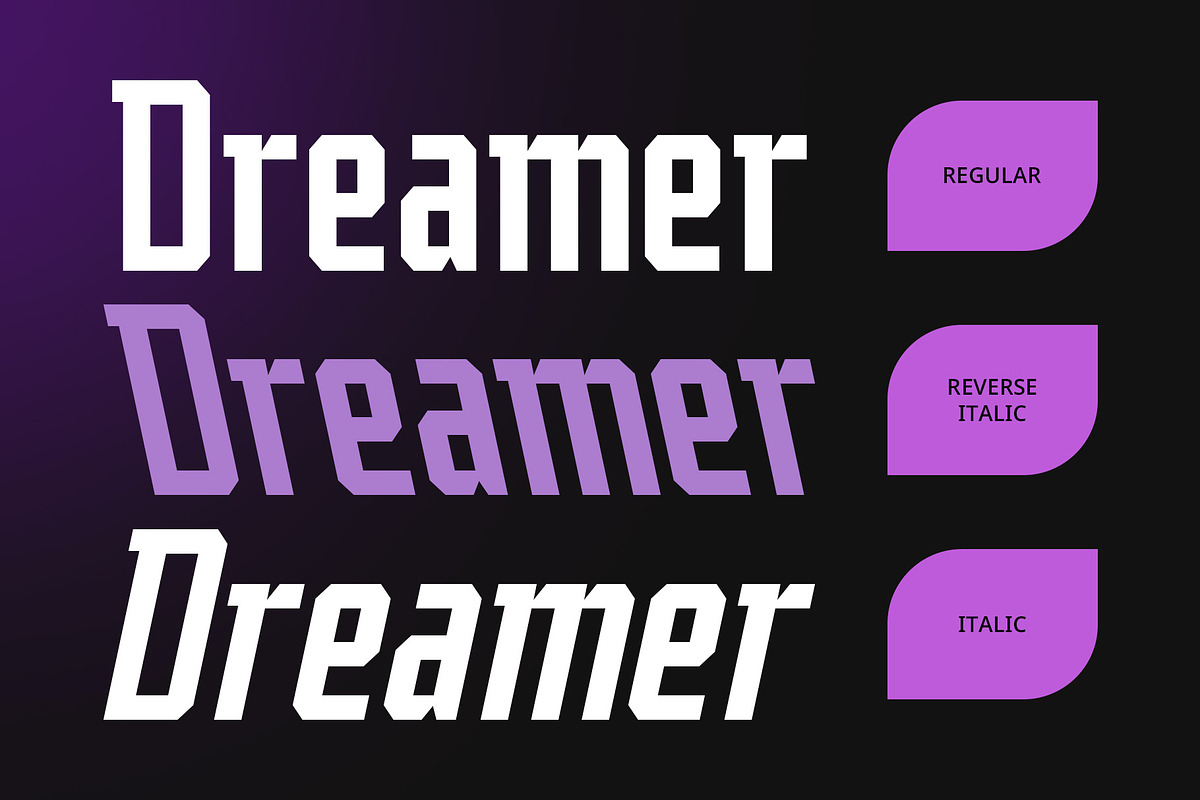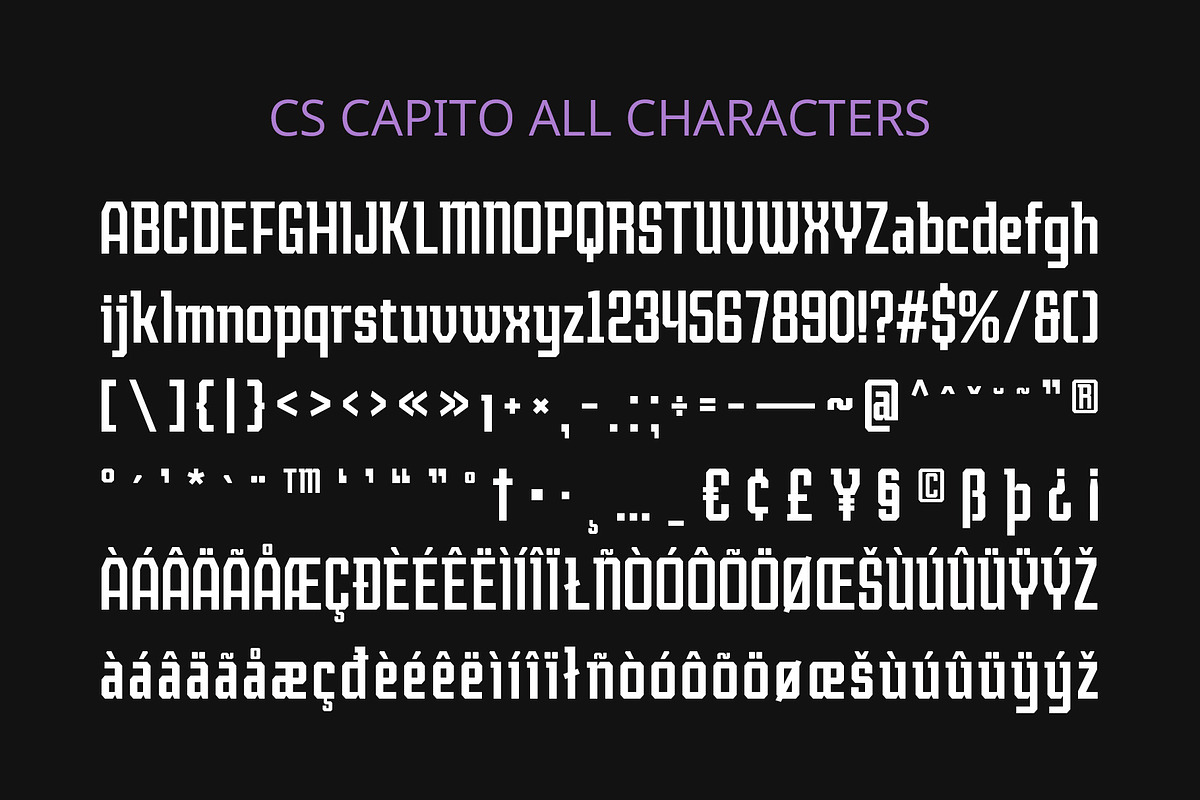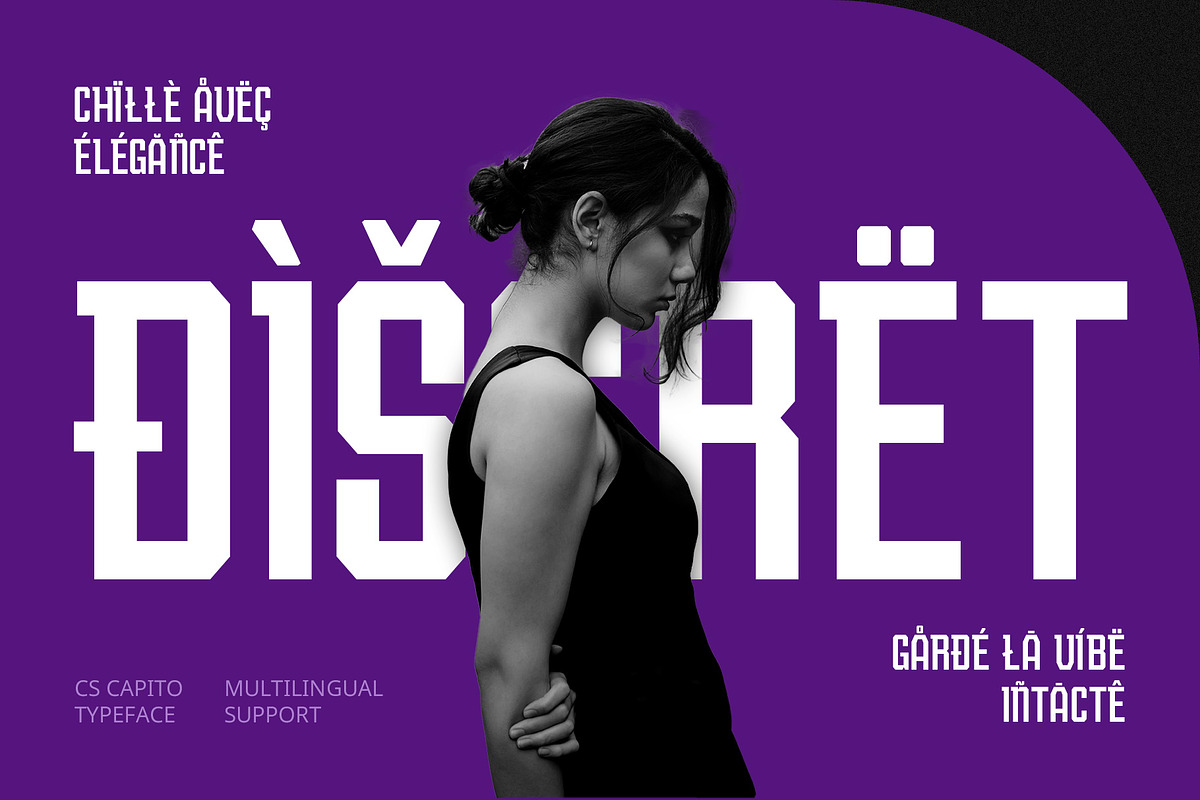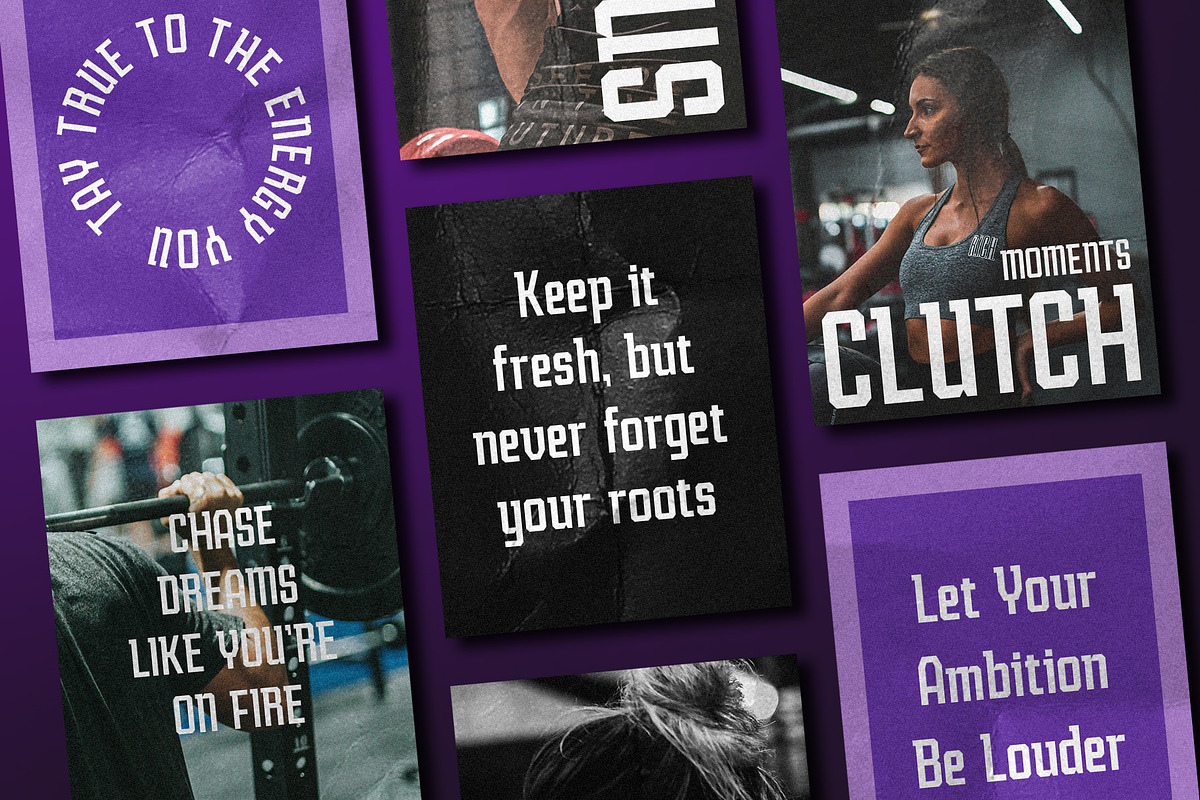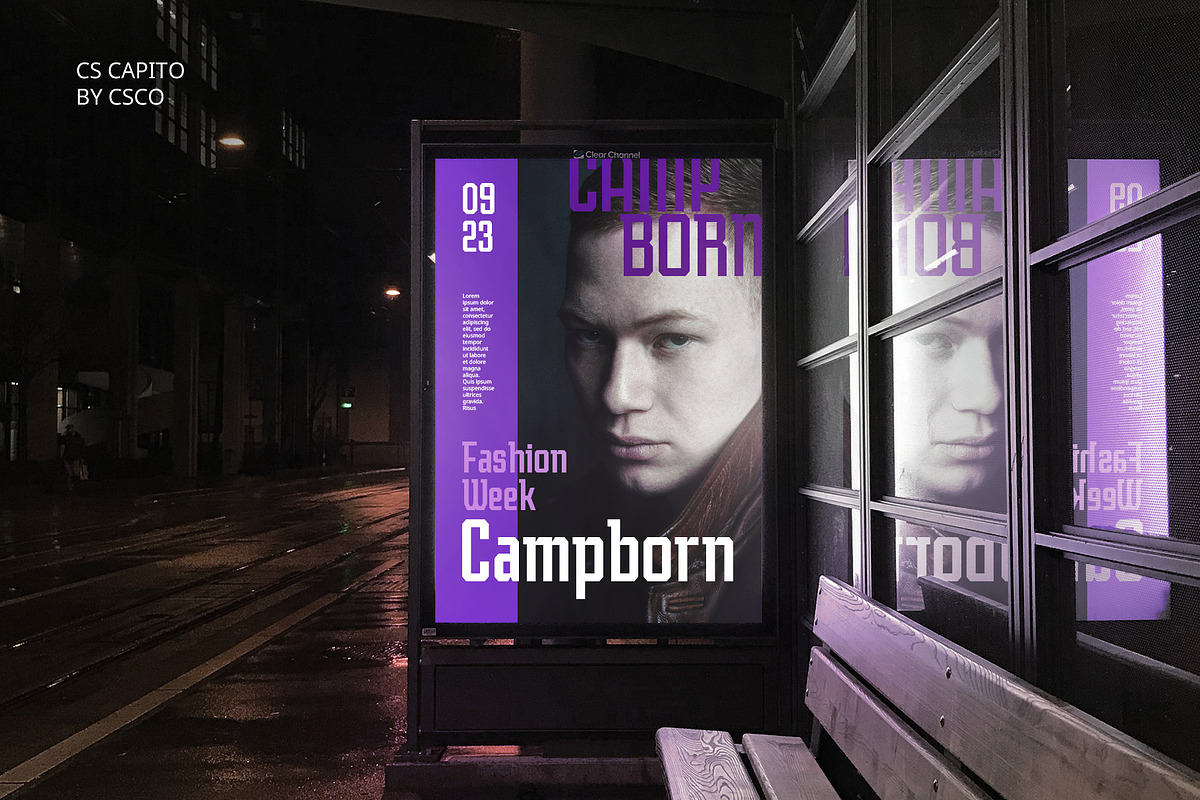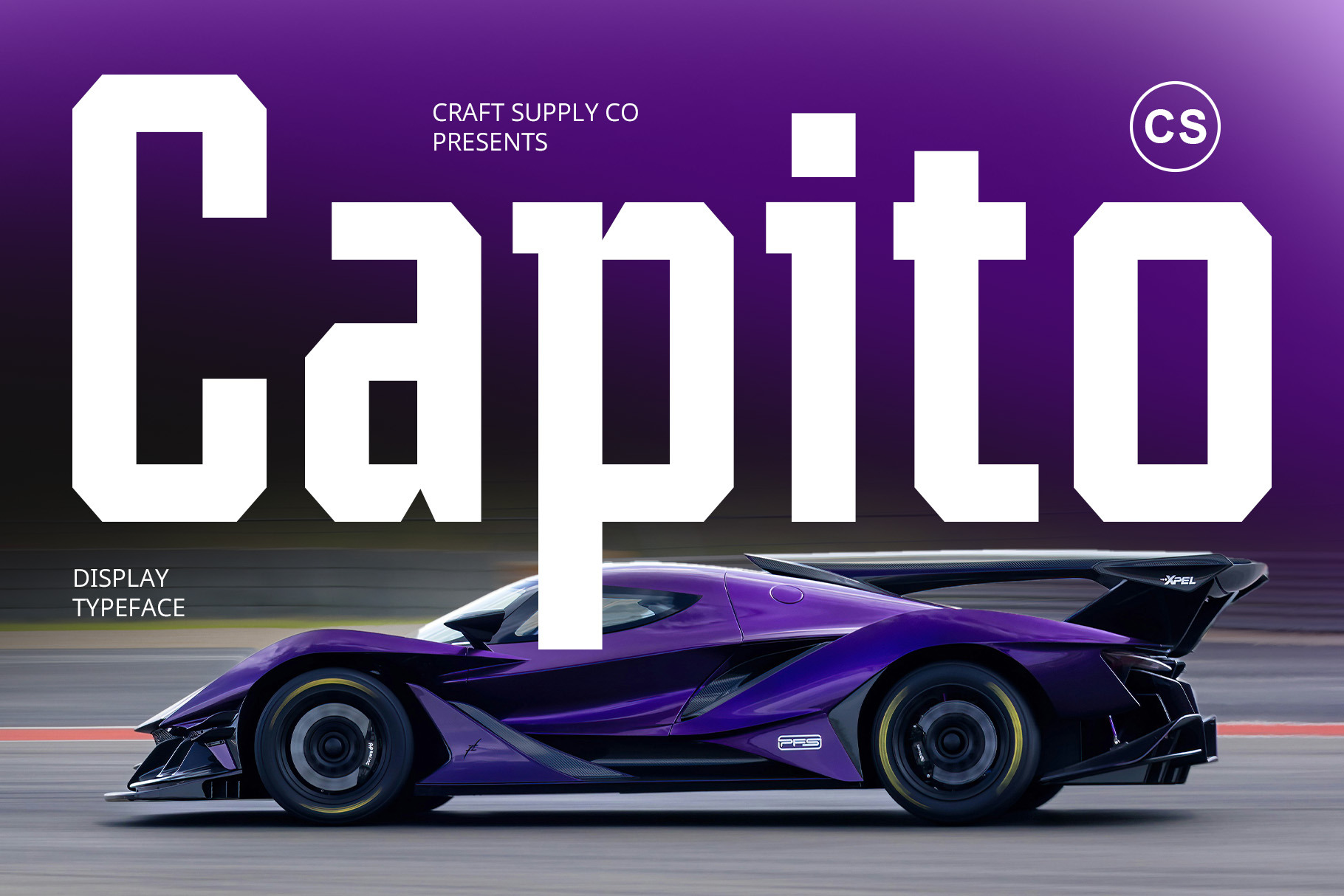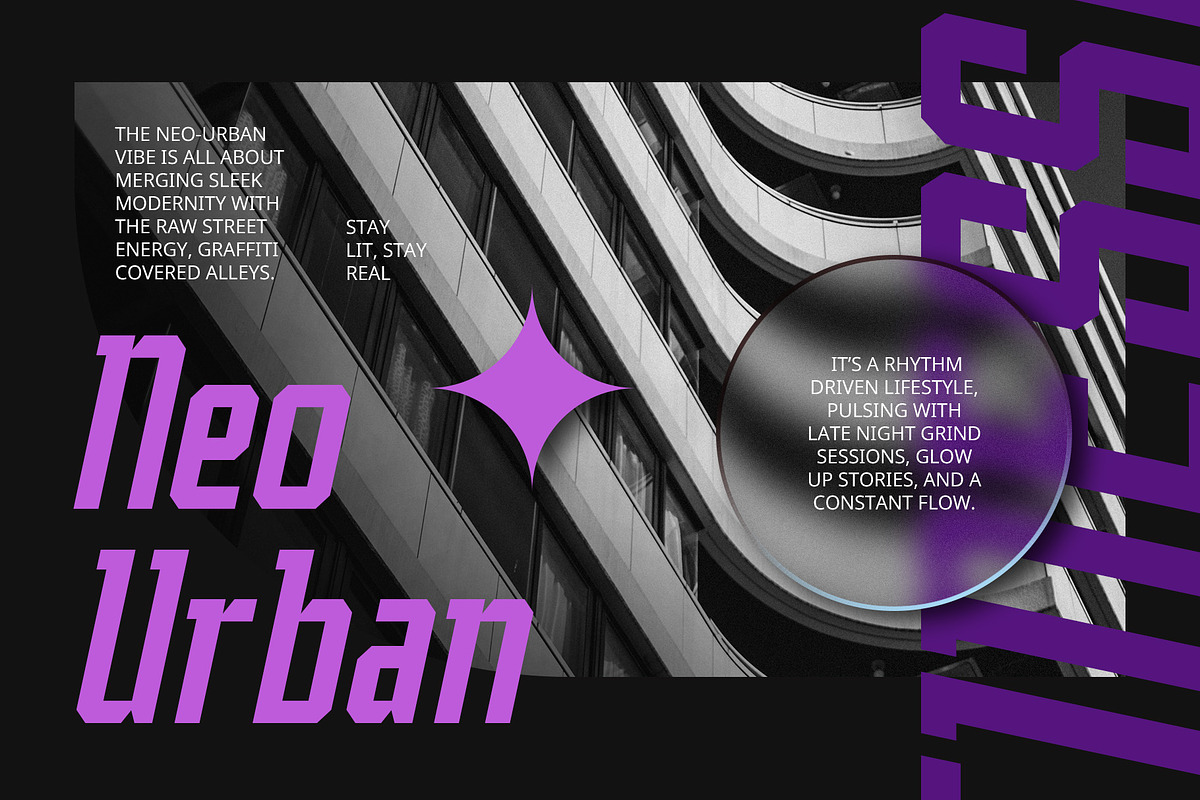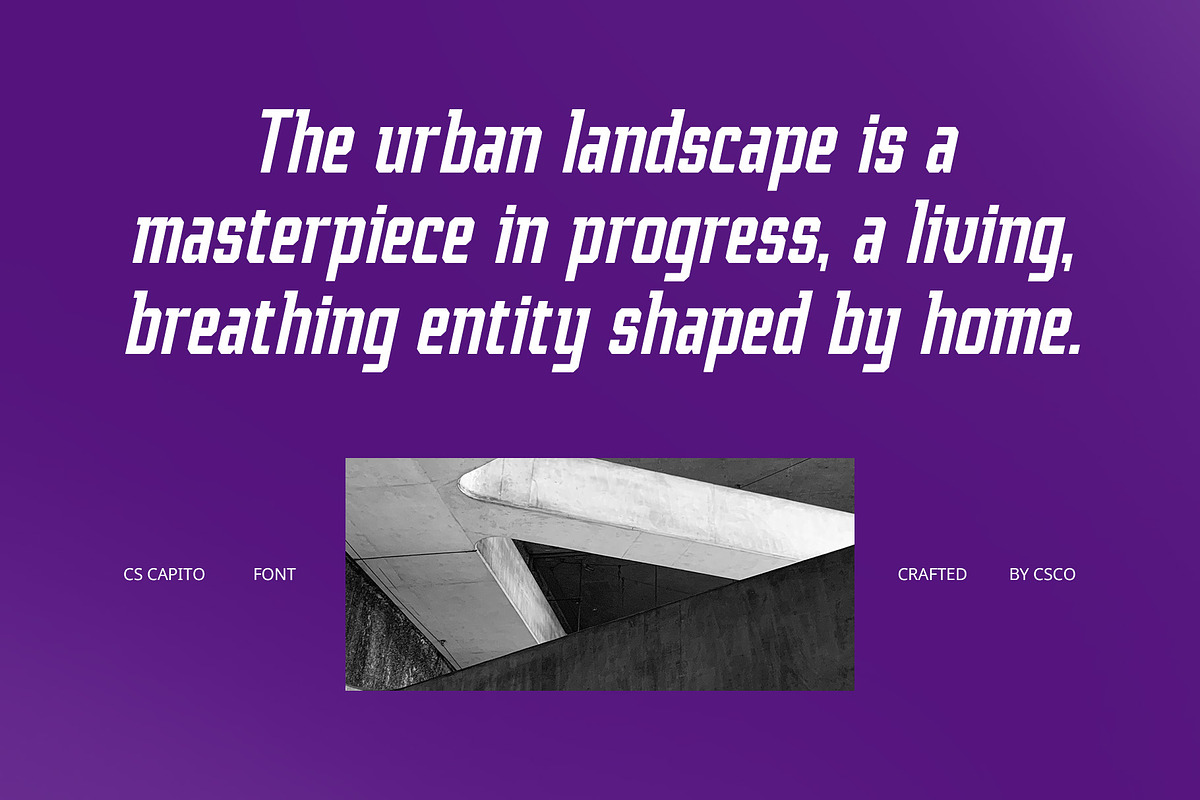
CS Capito – Sporty Font
CS Capito – Sporty Font: Dynamic, Energetic, and Bold
Bold and Dynamic Design CS Capito – Sporty Font is a modern display sans serif typeface designed with a sporty, energetic style. Featuring sharp, dynamic shapes, this font embodies a sense of movement and speed, making it perfect for designs that aim to convey energy and action. With its bold, upright letterforms, CS Capito emphasizes strength and decisiveness, making it an excellent choice for sports-related projects.
Perfect for Sports Branding and Advertising This font’s sharp angles and solid structure evoke a sense of power and momentum, making it ideal for sports branding, advertisements, and any design that demands a strong and energetic feel. Whether you’re working on a sports team logo, a high-energy marketing campaign, or an event poster, CS Capito delivers a look that is both striking and full of vitality.
Energetic Appeal for Fresh and Modern Designs CS Capito’s sporty aesthetic brings a fresh, modern vibe to any design project. Its clean, powerful lines provide a visually impactful result, making it suitable for a wide range of applications that require bold, attention-grabbing fonts. From sporting events to active lifestyle branding, this font radiates excitement and vigor, capturing the essence of movement and action in every letter.